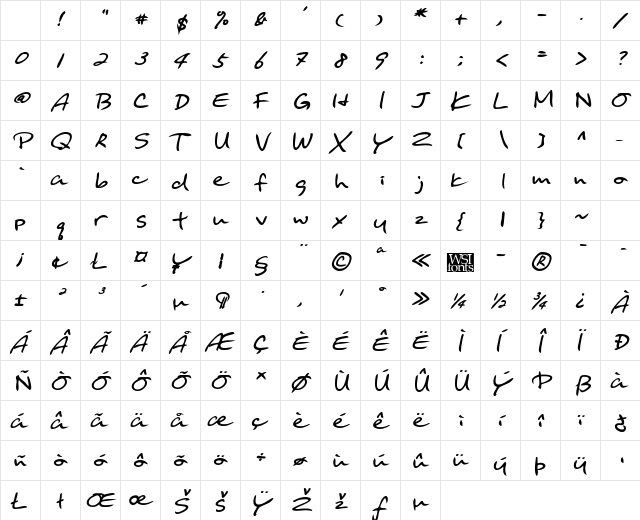
Complete BinghamsHand Bold Italic glyph index. Displaying only characters natively supported by BinghamsHand Bold Italic font.
BinghamsHand flows with the natural rhythm of handwritten lettering, making it ideal for designs that call for warmth and personal expression. Its bold stroke weight gives it real presence on the page.
Font Pairing: Combine BinghamsHand with a simple geometric sans for maximum contrast - the tension between flowing curves and clean structure is a classic typographic pairing.
Pro Tip: Use BinghamsHand for short runs of text - names, titles, or taglines. Extended body copy in script faces tires the eye quickly.